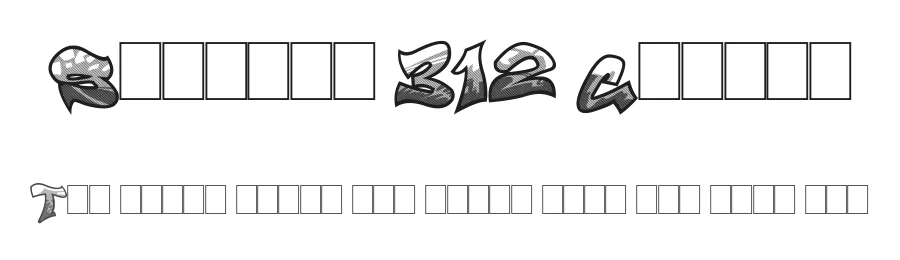
About The Quiet Scream Font
The Quiet Scream is a script-handwritten typeface designed by Segments Design, also known as Last Soundtrack. This flowing font brings genuine expressive character to any project that demands a distinctly personal touch and natural handwritten feel. With 653 glyphs and support for 292+ Latin-based languages, it offers solid breadth for international creative work while maintaining the organic quality that defines hand-lettered typefaces.
This script font excels in creative applications that value personality and emotional resonance over geometric precision. Designers frequently employ it for Etsy shop banners, where the flowing letterforms catch the viewer's eye and establish brand personality with immediate visual impact. Wedding invitation suites benefit tremendously from its warmth and authentic character, creating an inviting atmosphere before guests even open the envelope. Podcast episode artwork, music playlist covers, social media graphics, and book cover designs all showcase this font's distinctive ability to convey feeling through letterform and gesture. Branding collateral, greeting cards, and eye-catching headline typography also thrive with its expressive, individual voice.
The Quiet Scream Font is a script font that shines as a display or heading face. Pair it with a clean sans-serif or serif font for body text β the contrast creates a clear hierarchy while the two styles stay balanced and easy to read.
The Quiet Scream Font
by Segments Design (aka Last Soundtrack)